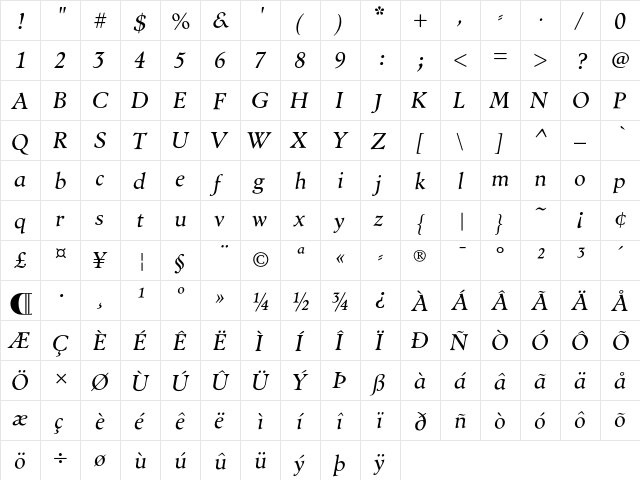
Nordik Regular
Design Context for Nordik Typeface
Nordik offers clean, dependable letterforms without strong stylistic allegiance, making it a practical choice for designers who need flexibility.